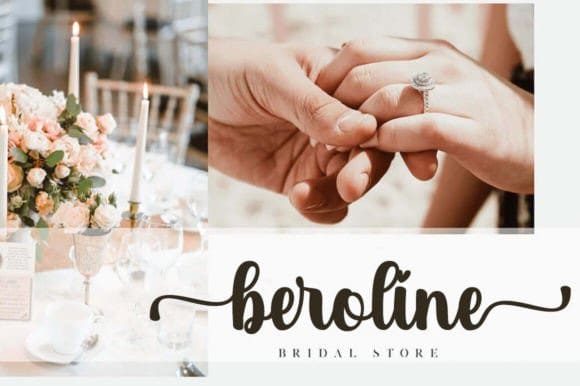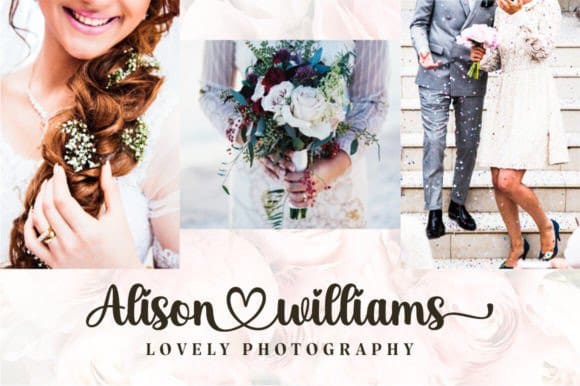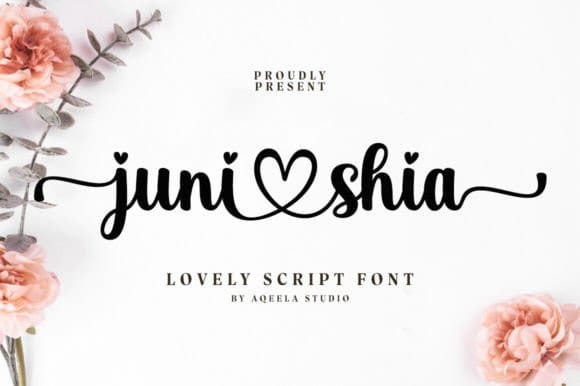
Juni Shia Font
Juni Shia Font is a fun handwritten font carefully created with a touch of elegance. Whether you’re looking for fonts for Instagram or calligraphy scripts for DIY projects, this font will turn any creative idea into a true piece of art!